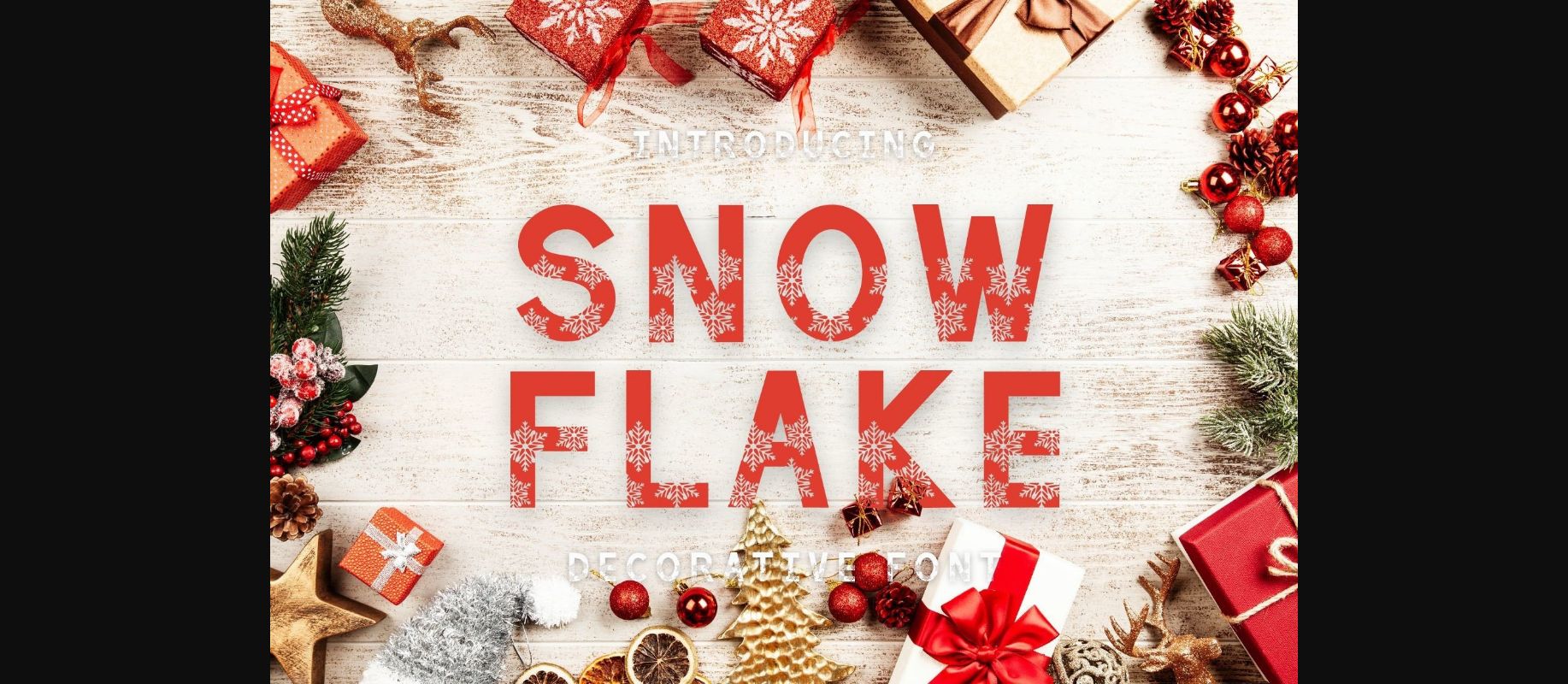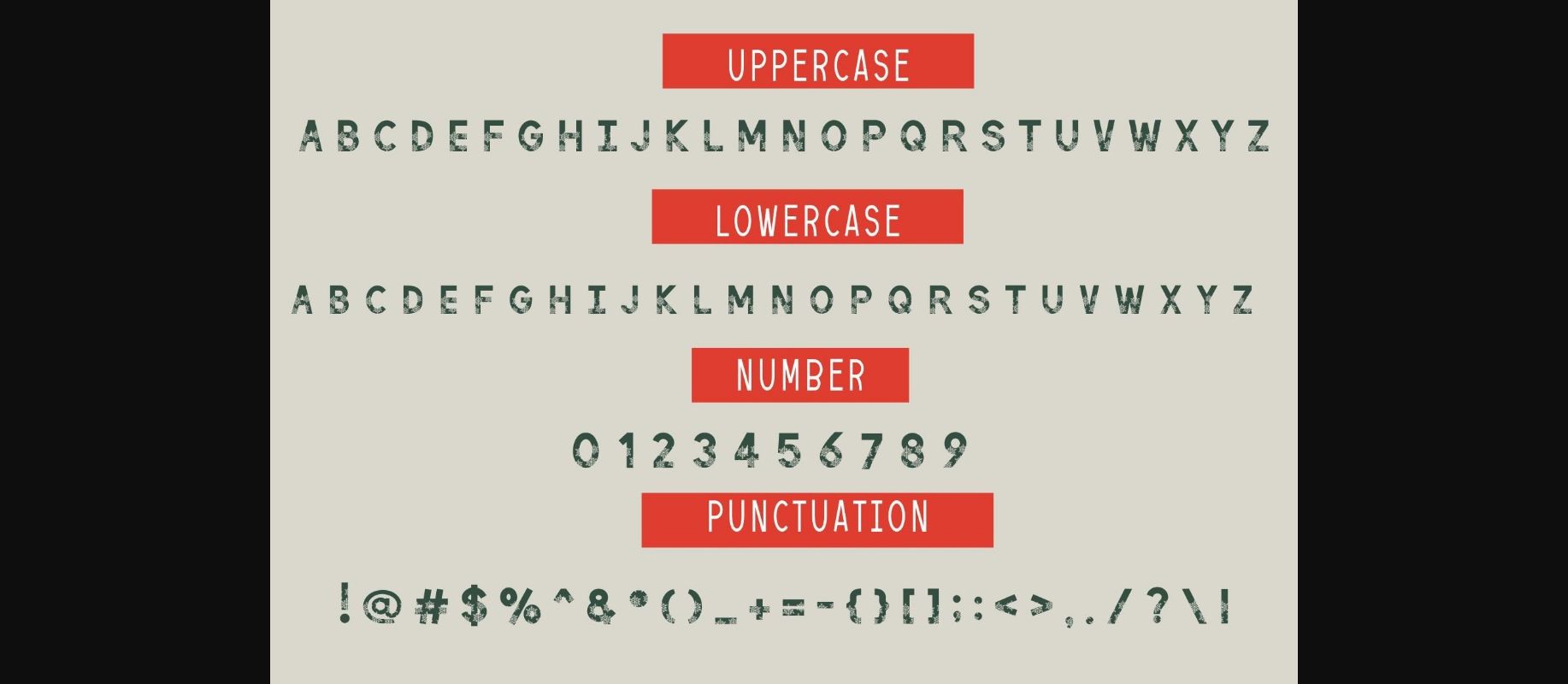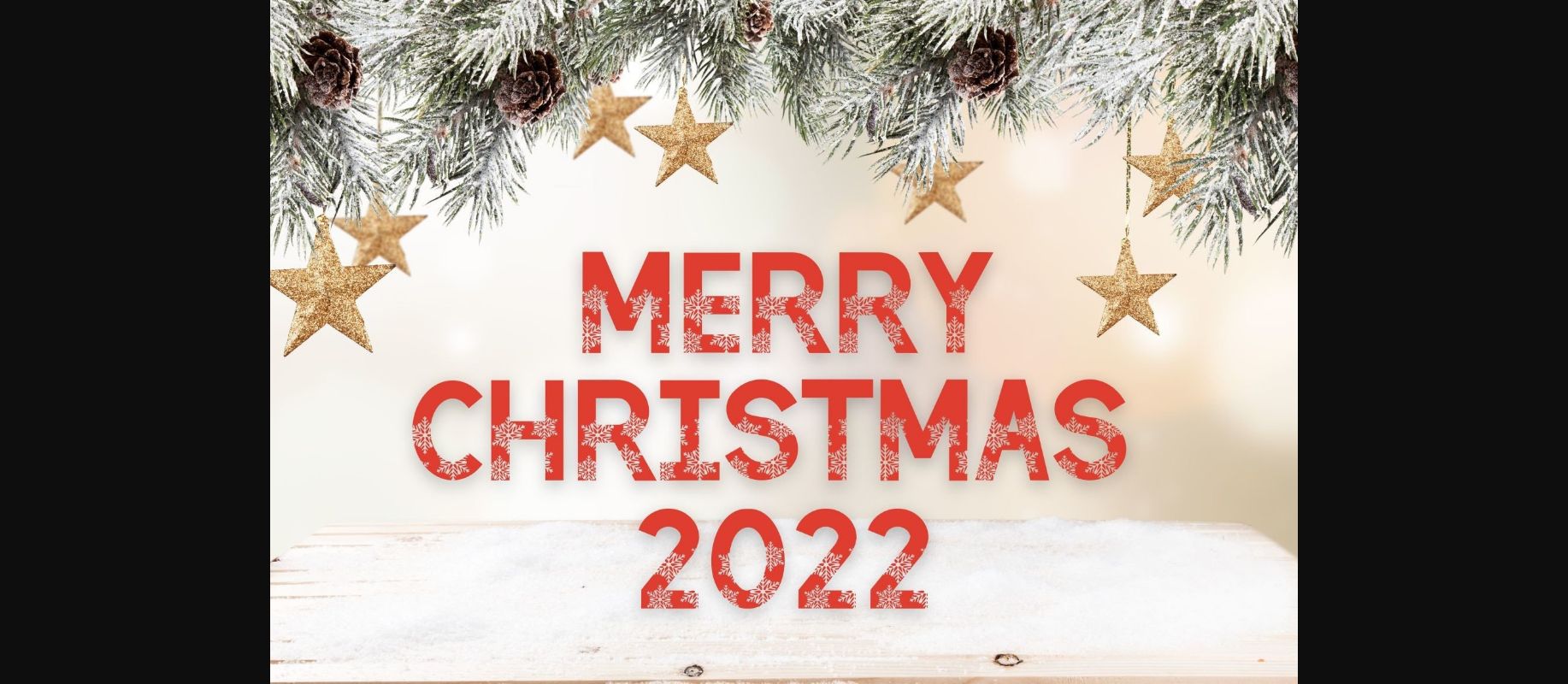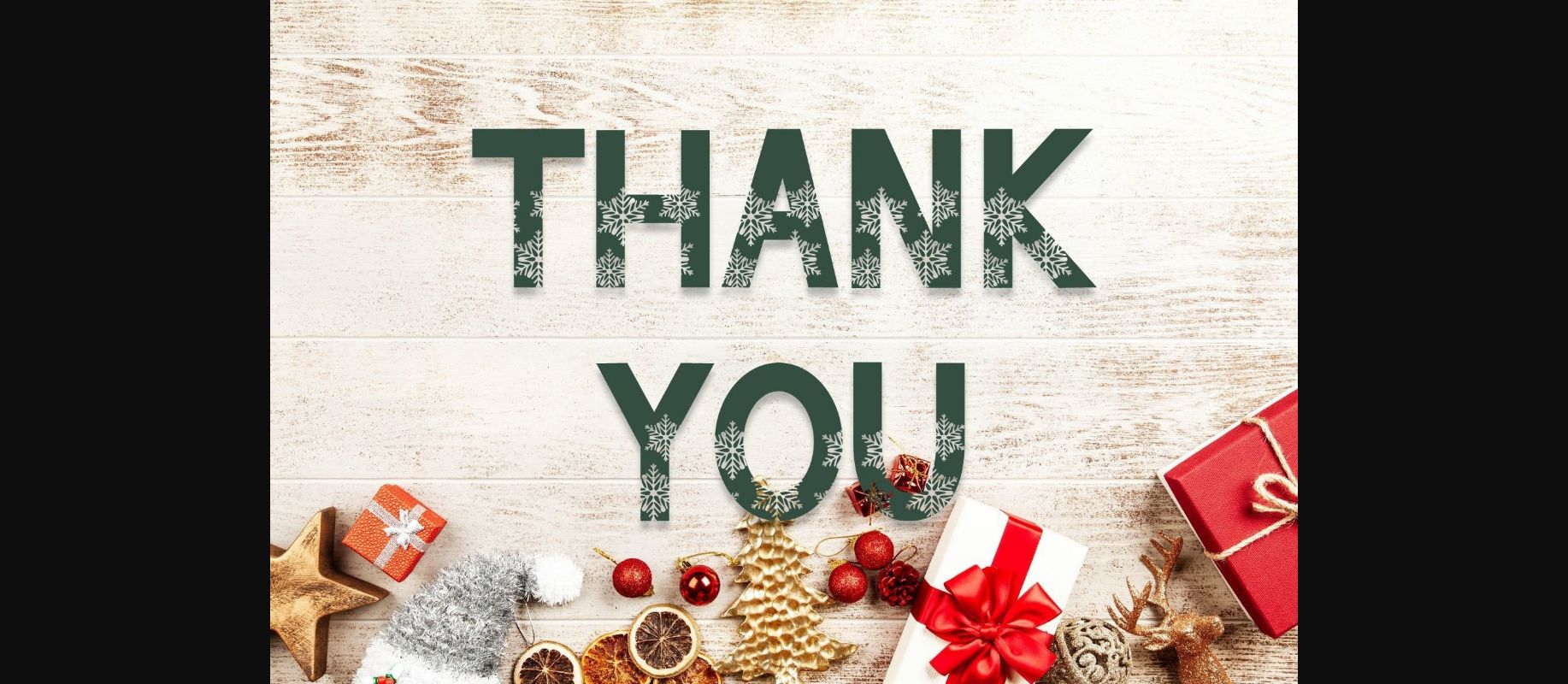
Snowflake Font
About Snowflake Font
Snowflake is a fun decorative font. It embodies playfulness and authenticity and is the perfect choice for all your favorite projects, or even for blog posts, logos, branding, ads, invitations, greeting cards, planners, photo albums, decorations, and much more. Add it to any of your designs, and enjoy the results!